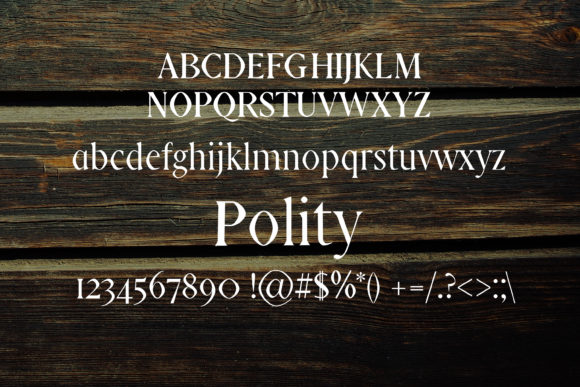
Introduction to Polity Font
Remember that moment when a design idea strikes, and you can’t wait to bring it to life? You’re sitting in front of your computer, and your mind is racing with possibilities. For designers, this feeling is all too familiar, and it’s what drives us to create something truly unique. But, have you ever felt like your design is missing that special something that sets it apart from the rest?
That’s where the Polity Font comes in – a strong and cool serif font that will turn any design idea into a true standout. With its high-quality design and versatility, Polity Font is a valuable resource for any creative project. Whether you’re working on a logo, a brochure, or a website, this font will help you convey your message with clarity and style.
Key Features of Polity Font
- High-quality font design for various creative projects, including logos, titles, and body text.
- Features a clear and legible design, with a font size range of 12-72 points and a resolution of 300 DPI.
- Designed to be versatile, making it suitable for both digital and print applications.
- Perfect for designers looking for a unique and high-quality design resource for their next creative project.
Honest Review: Polity Font
I recently stumbled upon the Polity Font, and I must say it’s been a game-changer for my design projects. The high-quality font is perfect for any creative project that requires a modern and sleek look. With a transparent background, it’s incredibly versatile and easy to use.
- ✨ Beautifully designed characters that are both elegant and sophisticated.
- ✨ Perfect for titles, headings, and other large text elements.
- ⚠️ The font might not be suitable for very small text sizes, as the characters can become blurry.
- ⚠️ Limited language support, which might be a concern for projects that require multilingual text.
Overall, I’m really impressed with the Polity Font. It’s a valuable resource for any designer, and the free download is a definite plus. If you’re looking for a high-quality font for your next design project, I highly recommend giving it a try.
Use the Polity Font in conjunction with other design elements to create a cohesive and modern look. Experiment with different font sizes and colors to add visual interest to your design. The Polity Font’s transparent background makes it a great choice for overlaying text on images or other design elements.
The Polity Font is a versatile font that can be used in a variety of creative projects, including:
– Business cards and brochures
– Social media graphics and ads
– Presentations and reports
– Websites and blogs